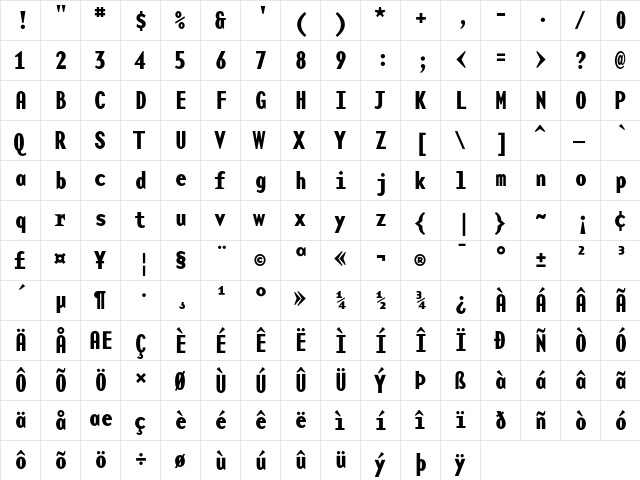
BaseMono-Narrow Bold
Design Context for BaseMono-Narrow Typeface
BaseMono-Narrow brings the precise, column-aligned rhythm of monospaced typography to designs that value technical clarity and systematic order. The heavy weight commands attention and anchors typographic hierarchies.
Pro Tip: Pair BaseMono-Narrow with a proportional sans for UI contexts where code-style labels and regular body copy need to coexist.